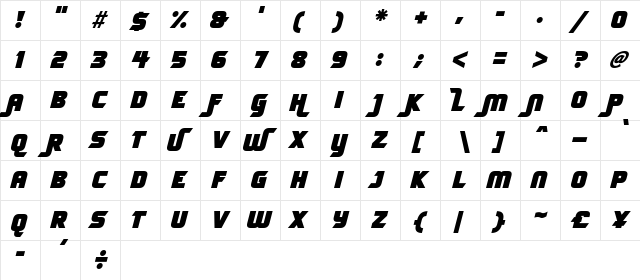
FLOURISH Italic Font Preview
FLOURISH Italic
Design Context for FLOURISH Typeface
FLOURISH is a composed and adaptable typeface that performs quietly and consistently across a wide range of design contexts. Its italic angle brings a sense of urgency and motion to the letterforms.
Pro Tip: Use FLOURISH for emphasis, pull quotes, and subheadings where its slanted energy can add rhythm to the layout.